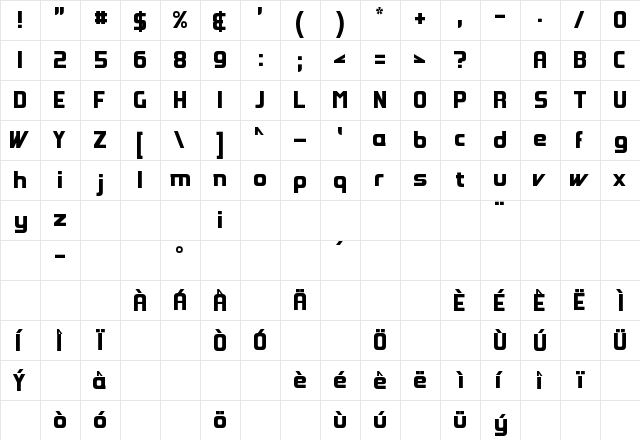
Groovy Fast Regular
| Designer | Zdenek Gromnica a.k.a. FutureMillennium |
Design Context for Groovy Fast Typeface
Groovy Fast takes a measured approach to typography — its balanced proportions and neutral character make it a reliable workhorse for both digital and print work.